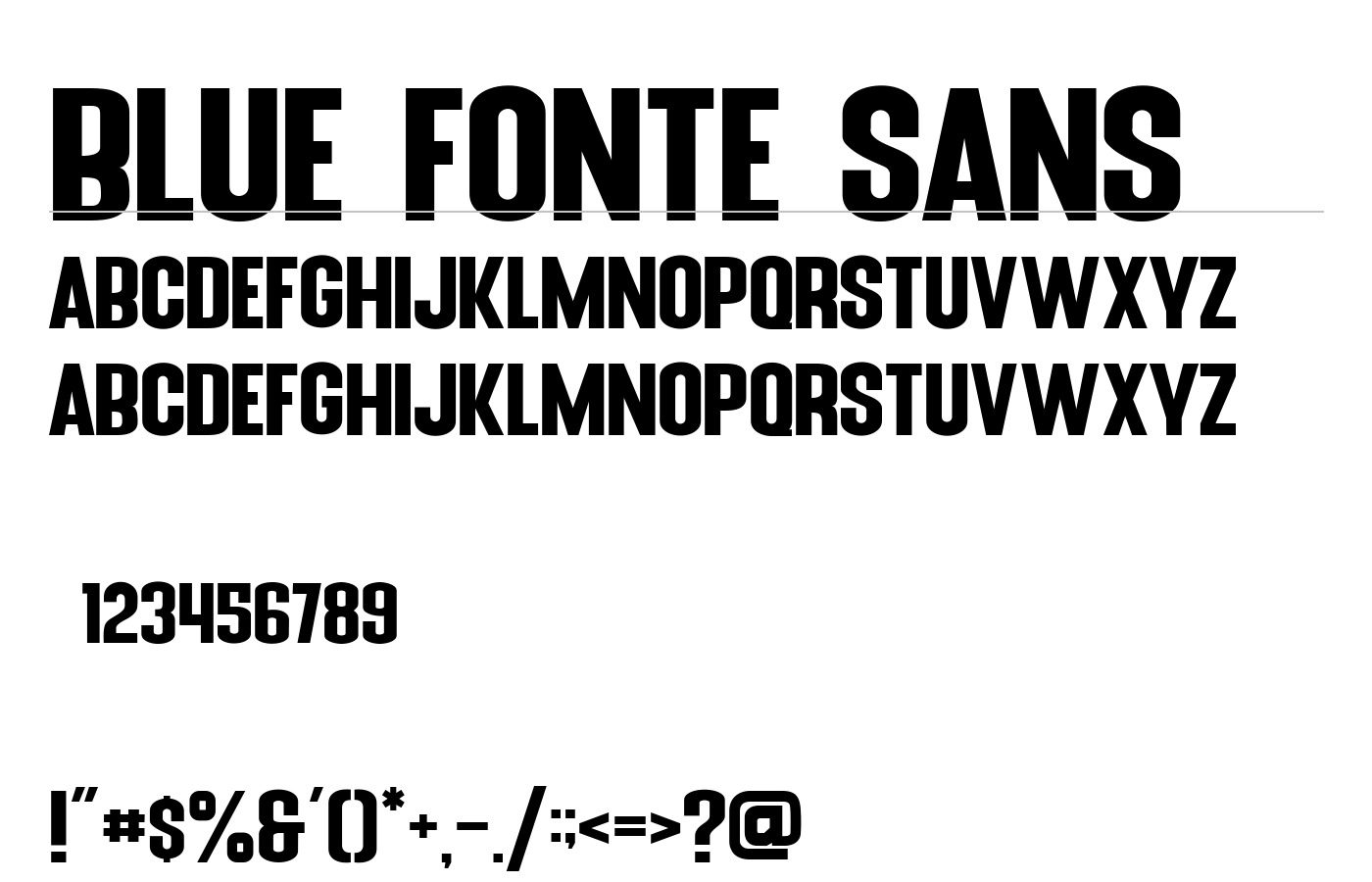
Blue Fonte Sans is a bold, condensed sans serif typeface with a strong, geometric structure that commands attention. Its tall, tightly spaced letterforms make it perfect for impactful headlines, branding, and logos where a modern, confident, and assertive tone is desired. This font works well in settings that need clarity and presence without sacrificing style, such as posters, editorial designs, and stylish packaging.
Blue Fonte Sans Font
About Blue Fonte Sans Font
| Font family | Blue Fonte Sans Font |